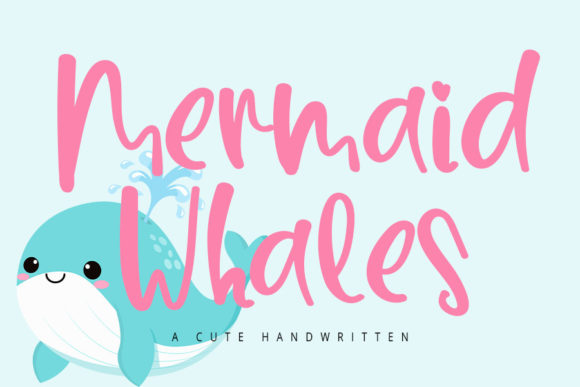
Immerse yourself in the depths of creativity with Mermaid Whales Font, a script font that spells enchantment. Its elegant curves, reminiscent of ocean waves, will transport you to a world of boundless inspiration.
With Mermaid Whales Font, your designs will emanate an aura of sophistication and grace. Let your words dance upon the page, as this font weaves a spell of timeless beauty. Its delicate strokes, like whispered secrets, will captivate your audience and leave them spellbound.
Unleash your inner artist and let Mermaid Whales Font ignite your imagination. Its versatility knows no bounds, from enchanting invitations to heartfelt letters, Mermaid Whales Font will elevate your designs to new heights. Experience the magic of breathtaking logos, alluring branding, and captivating social media posts.
Transport yourself to a world where creativity flourishes and dreams take flight. Mermaid Whales Font is your gateway to a realm of endless possibilities. Its enchanting touch will transform your projects into masterpieces, leaving an indelible mark on the hearts of your audience.